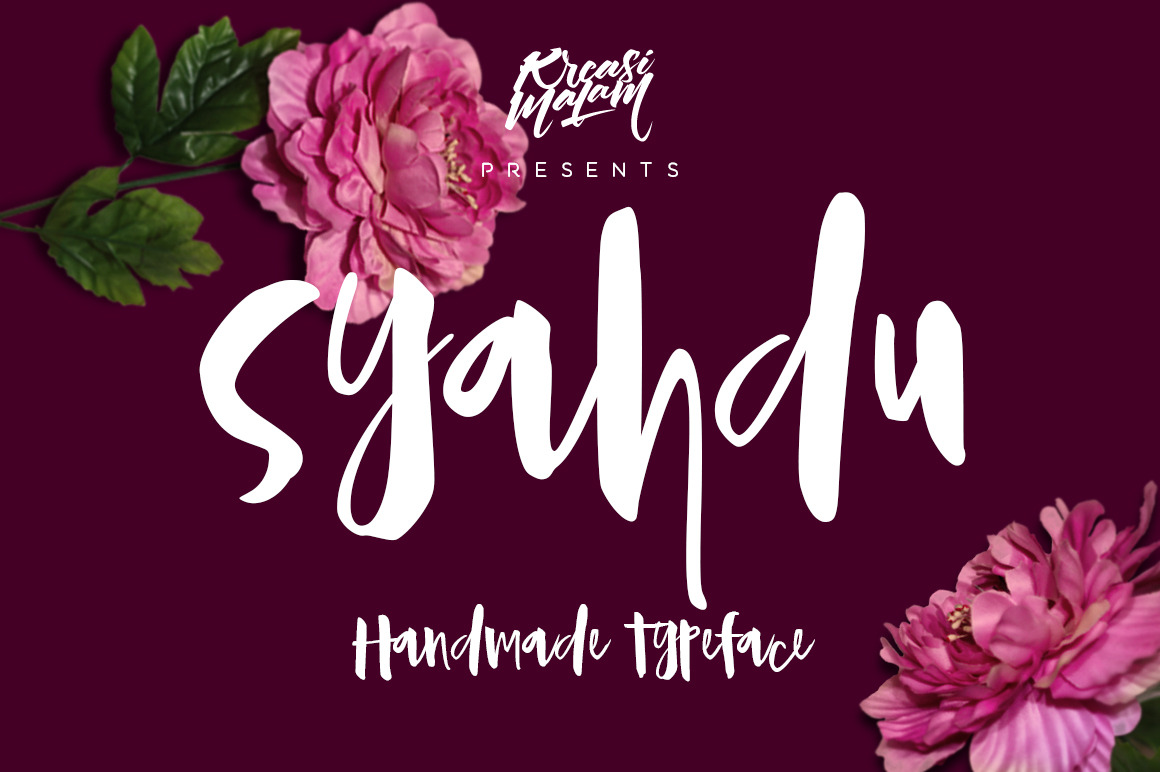
Syahdu Font
Syahdu Font a handmade calligraphy font would be awesome for your design projects. It could be fitted for logos, quotes, t-shirts, posters or anything. Available in uppercase, lowercase, numerals and punctuations.